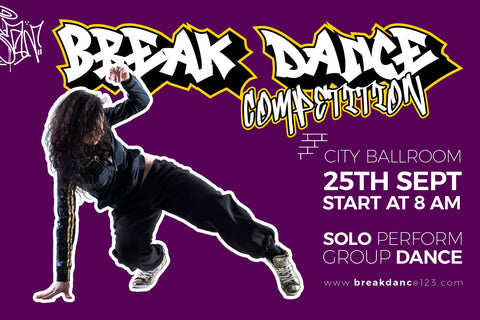
Track Junk - A Sharp Layered Graffiti Style font
Track Junk is a bold, sharp-edged, layered graffiti font that exudes an intense street-style vibe. With jagged and angular characters, this font gives off a rebellious energy perfect for urban and contemporary design projects. Each letter features strong, clean cuts that bring a raw, dynamic feeling to any visual. Track Junk offers multiple layers, such as solid, outline, and shadow styles, allowing for a customizable 3D effect that adds depth and dimension to your artwork.